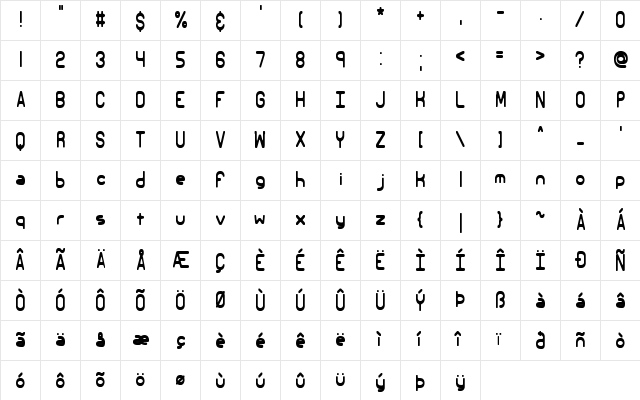
Elsewhere 2 BRK Regular
Design Context for Elsewhere 2 BRK Typeface
Elsewhere 2 BRK offers clean, dependable letterforms without strong stylistic allegiance, making it a practical choice for designers who need flexibility.